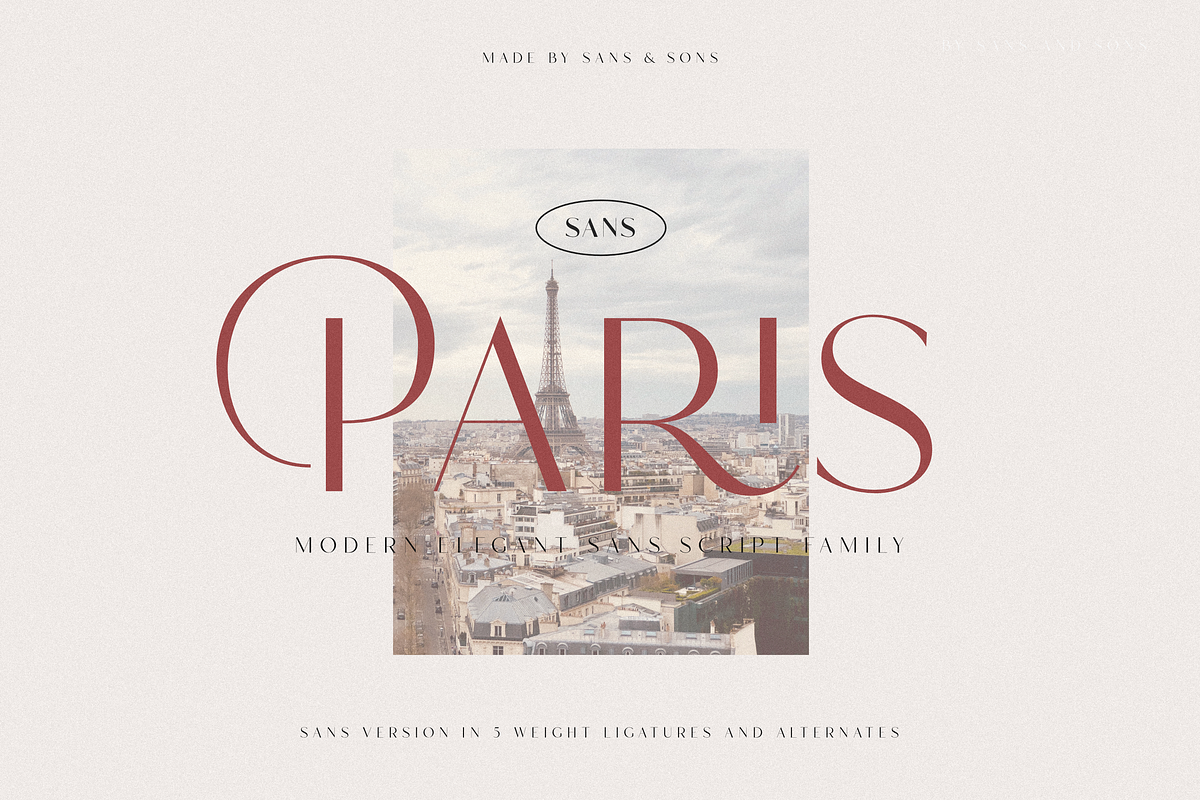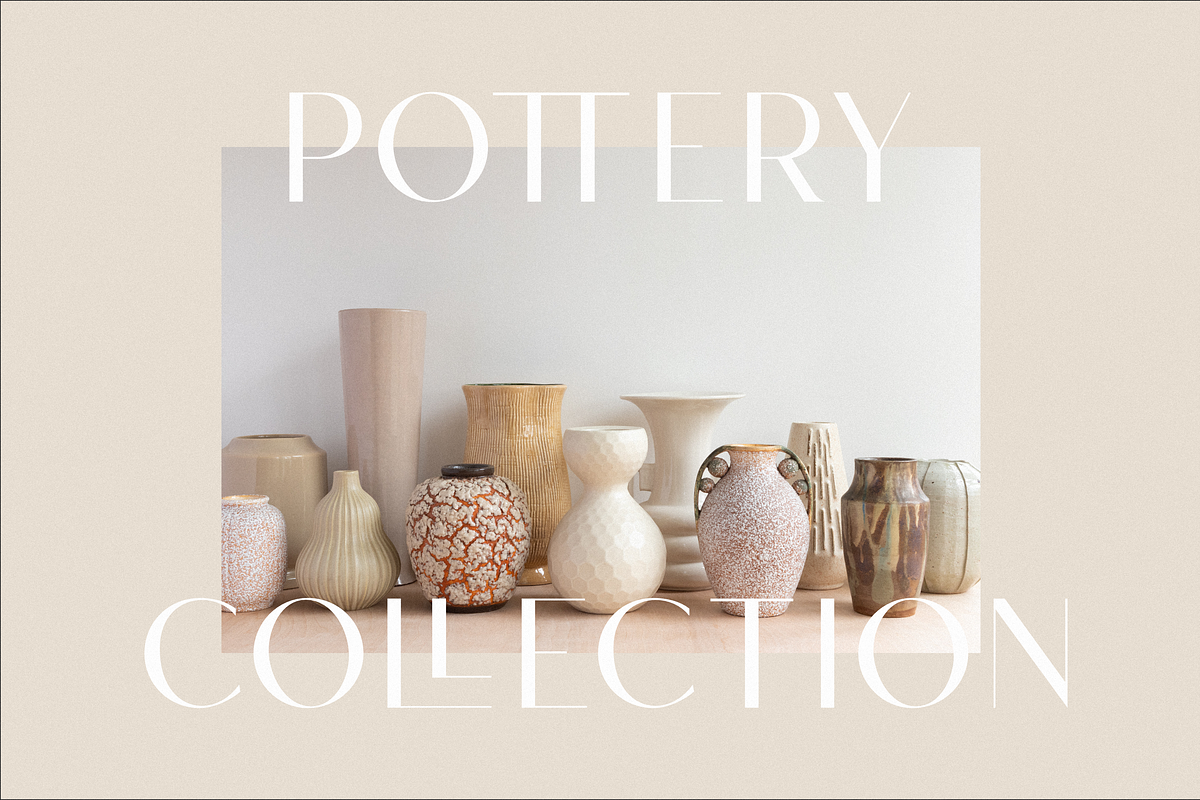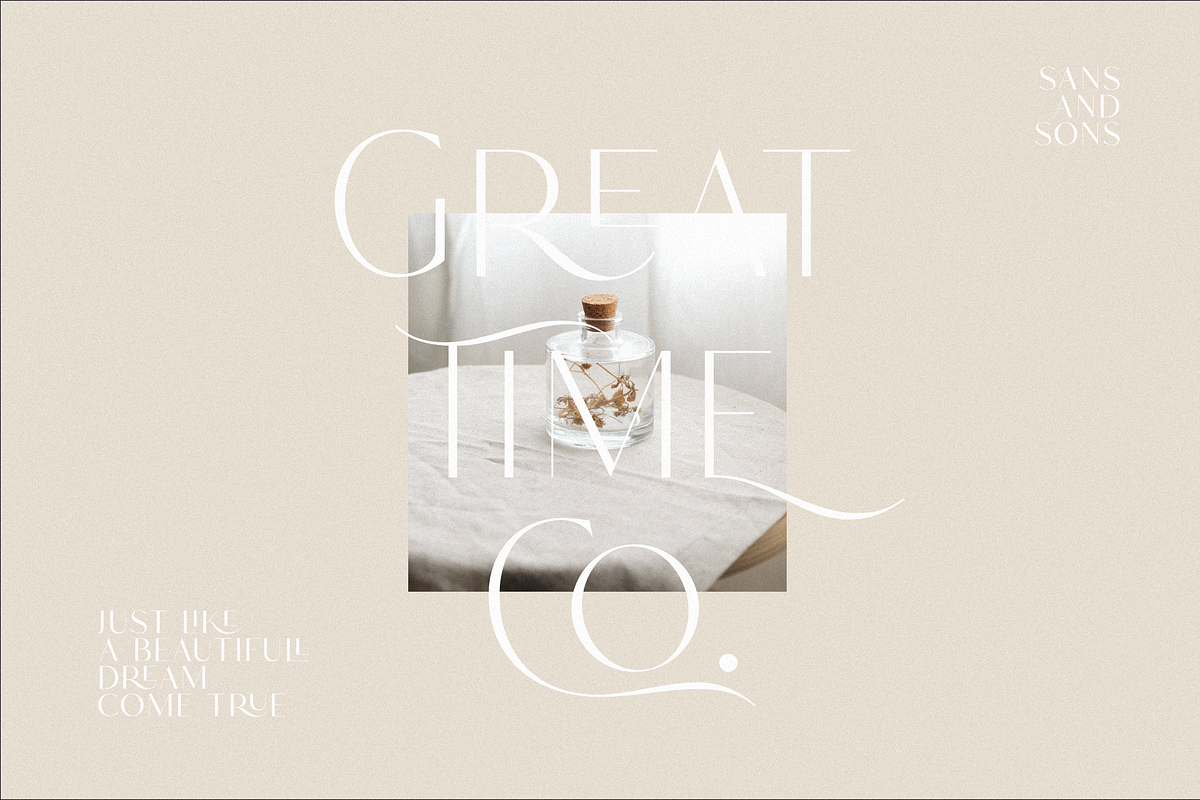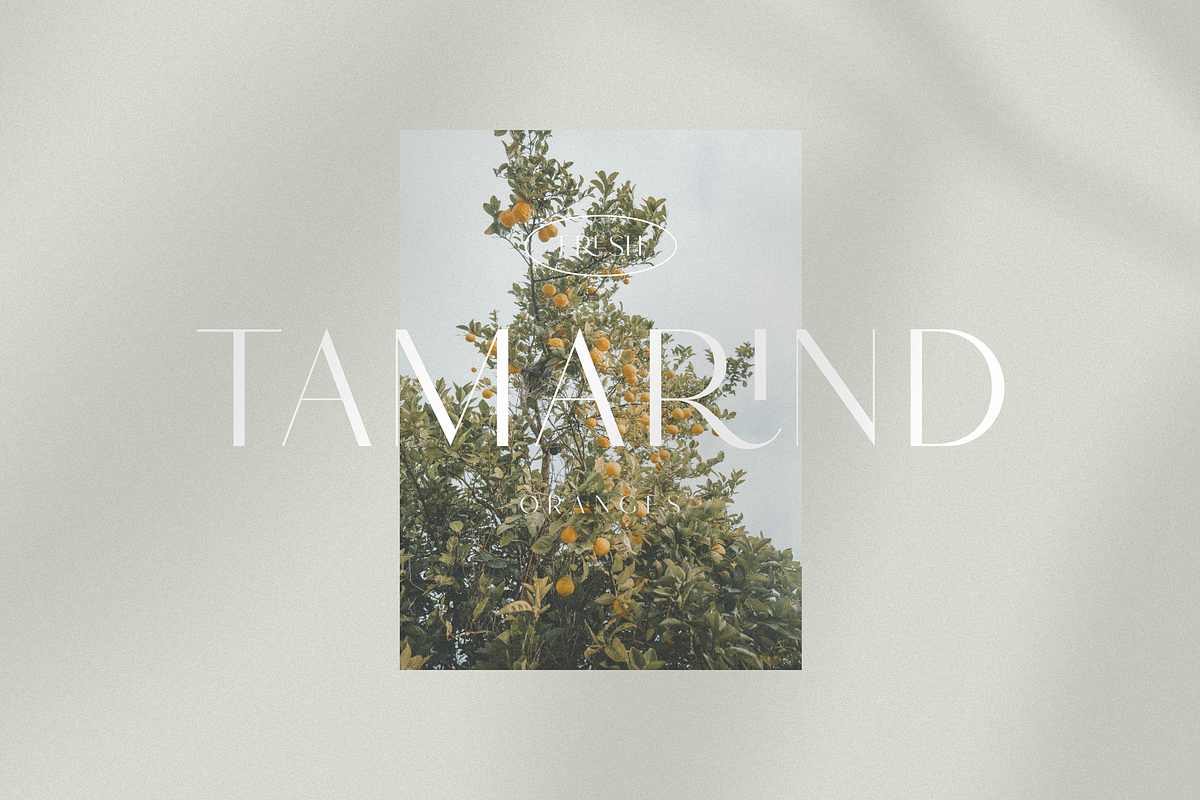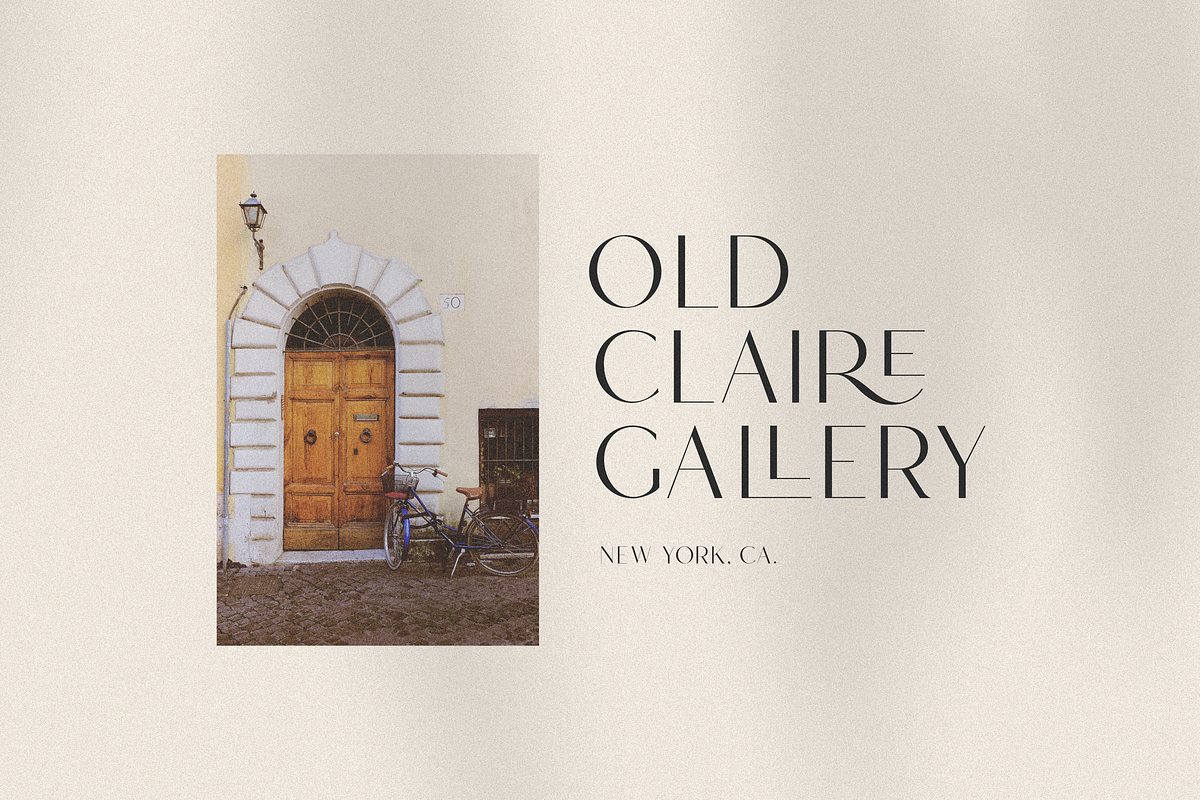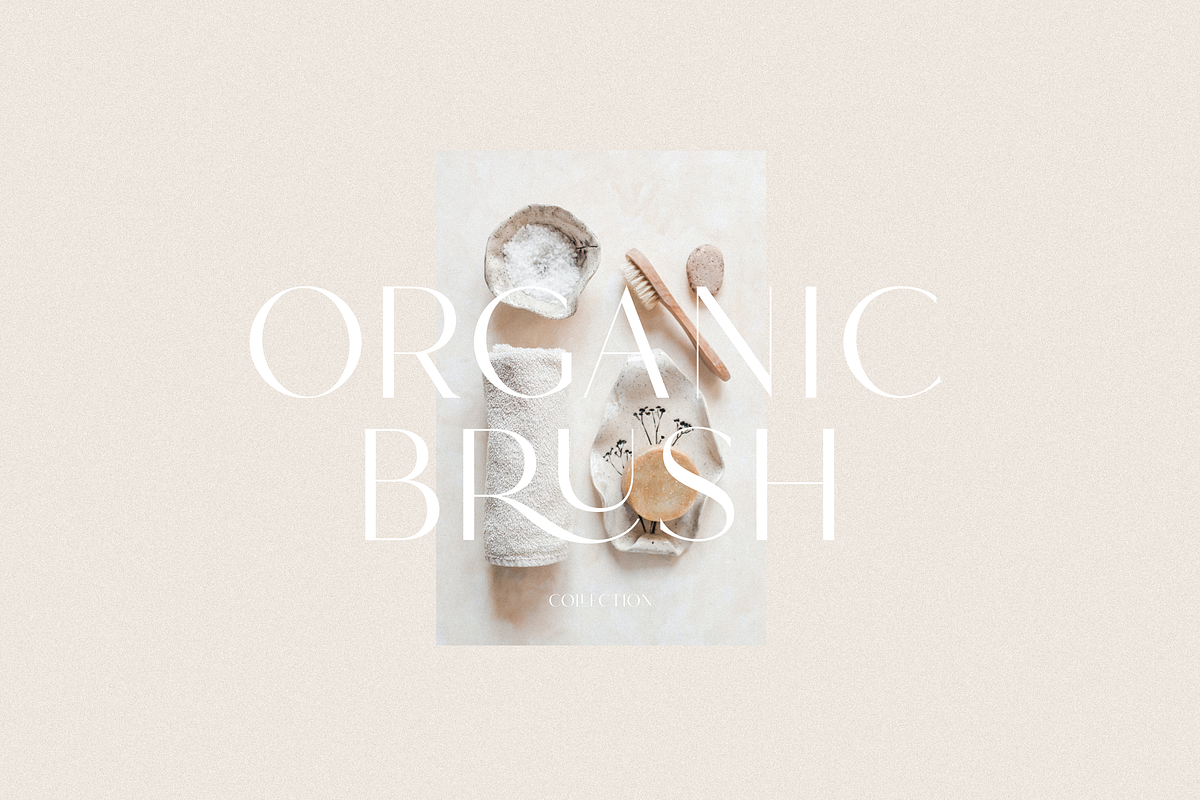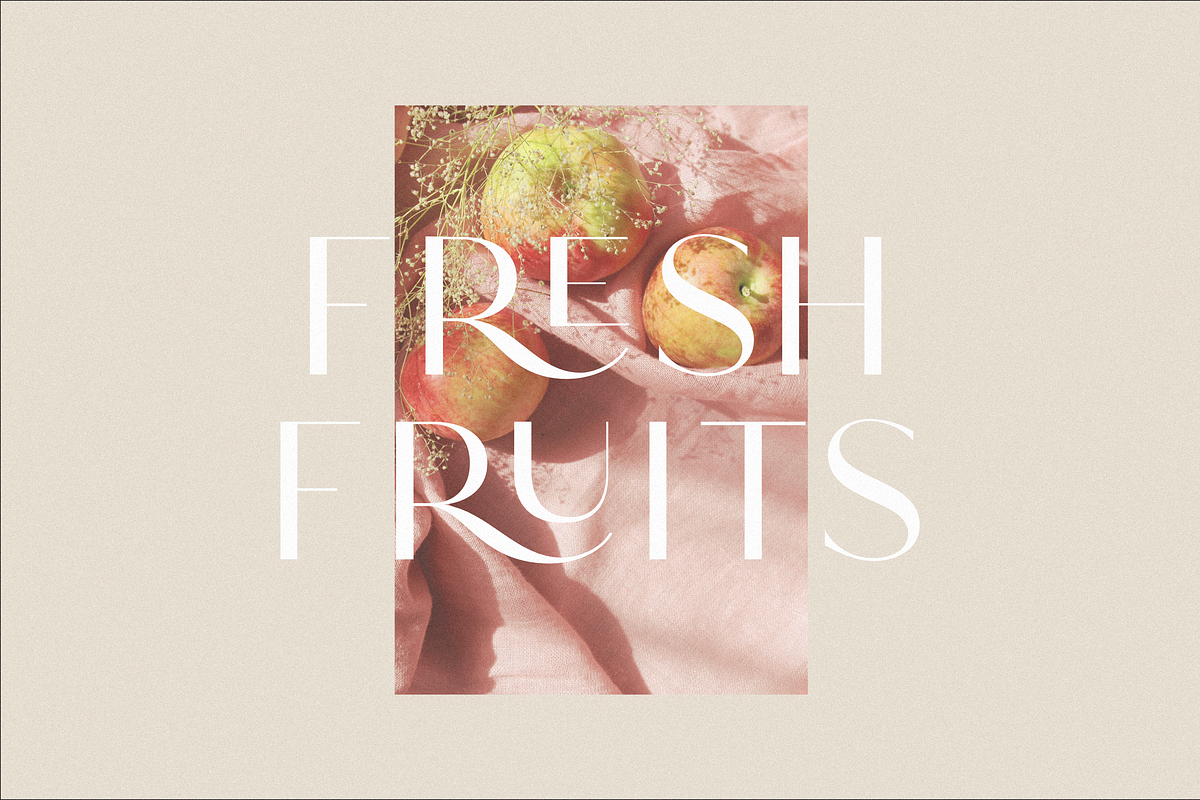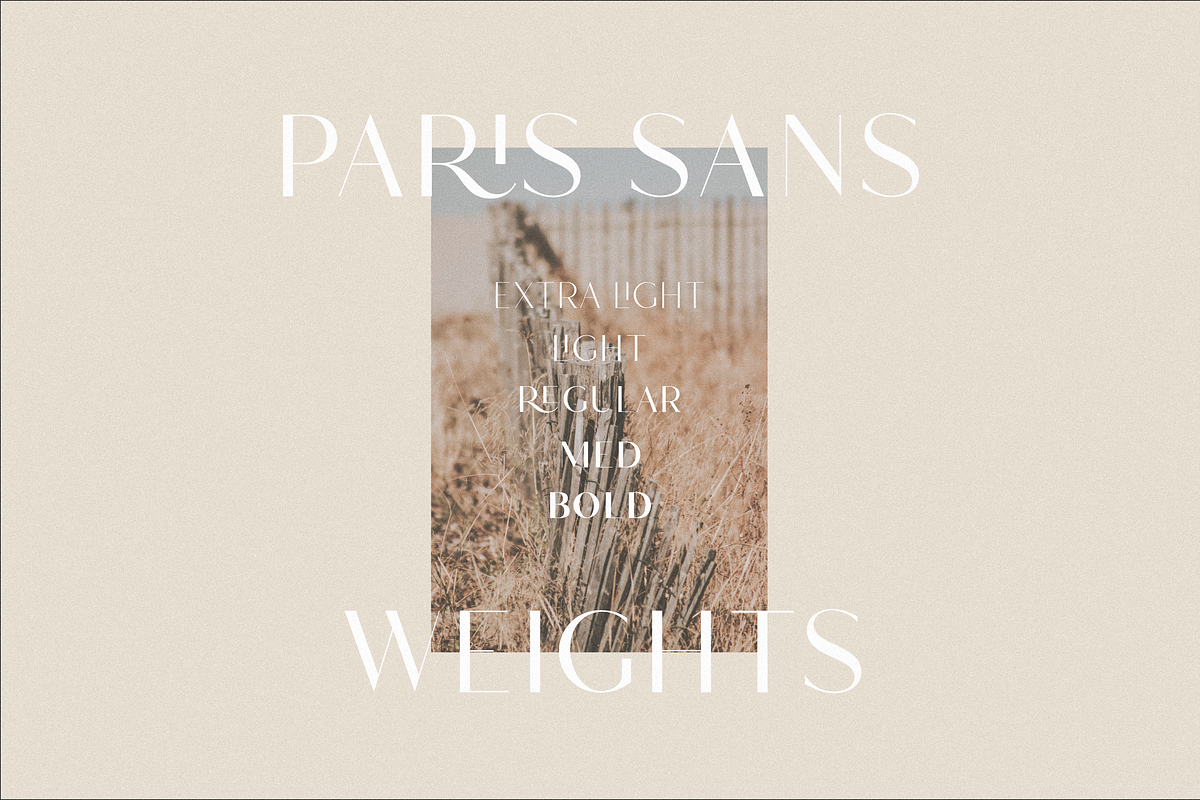
Hello Paris - Modern Sans
Hello Paris - Modern Elegant Sans
we are so excited to announce our new Hello Paris Sans - Sans version of Hello Paris with Modern Elegant Style this is perfect for branding, logos, invitation, masterheads and more.
Hello Paris Sans Features :